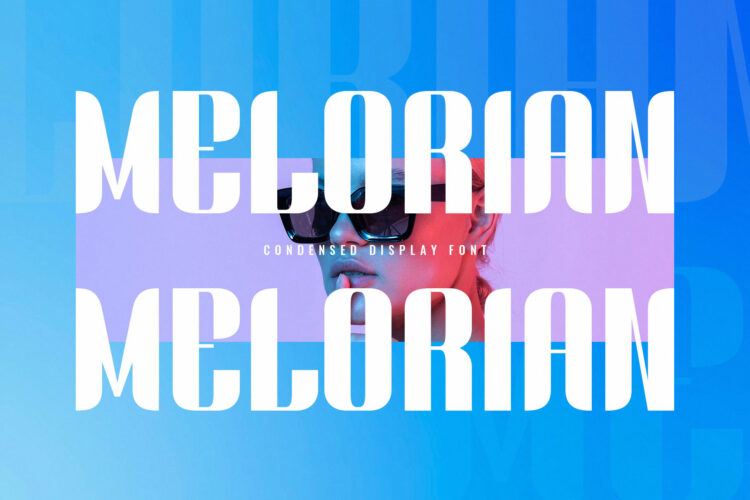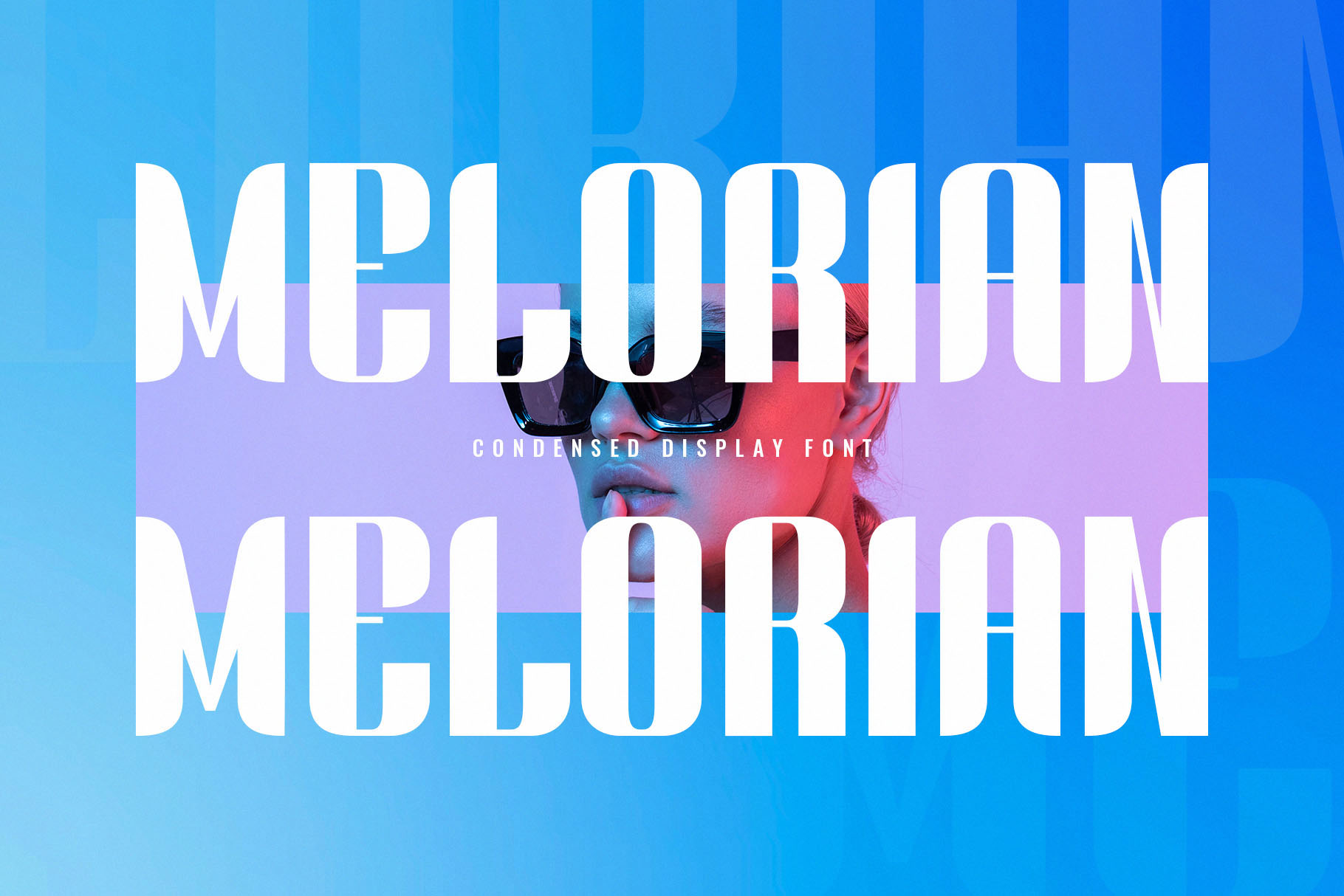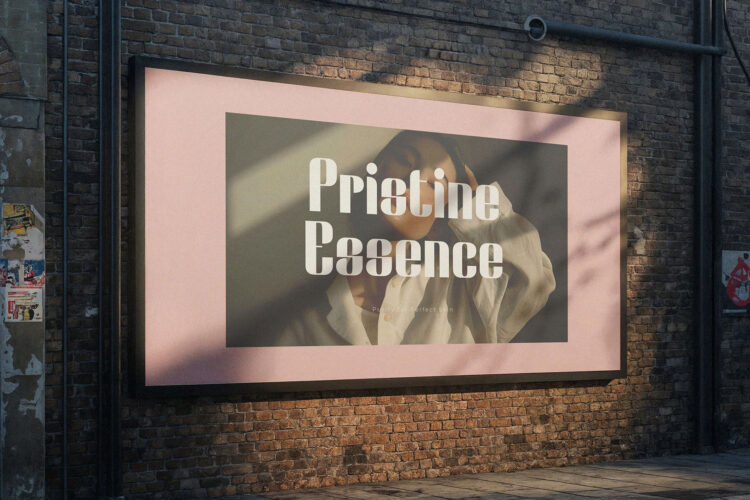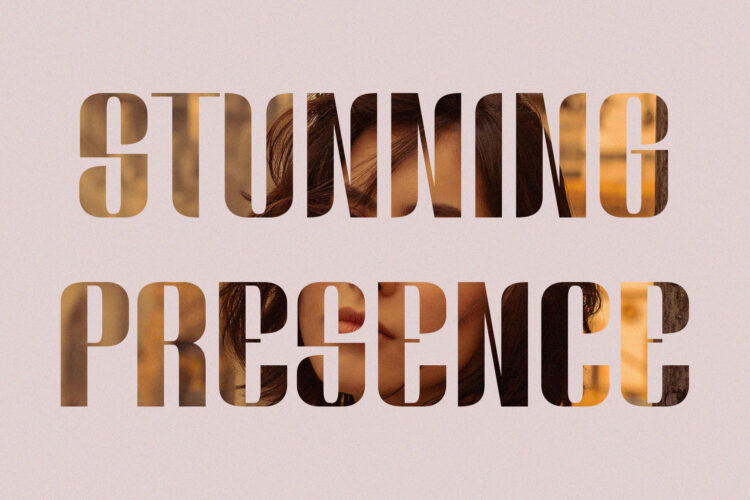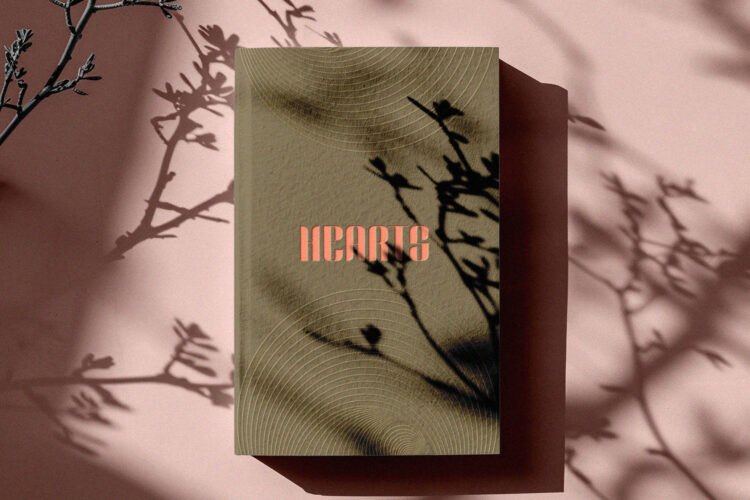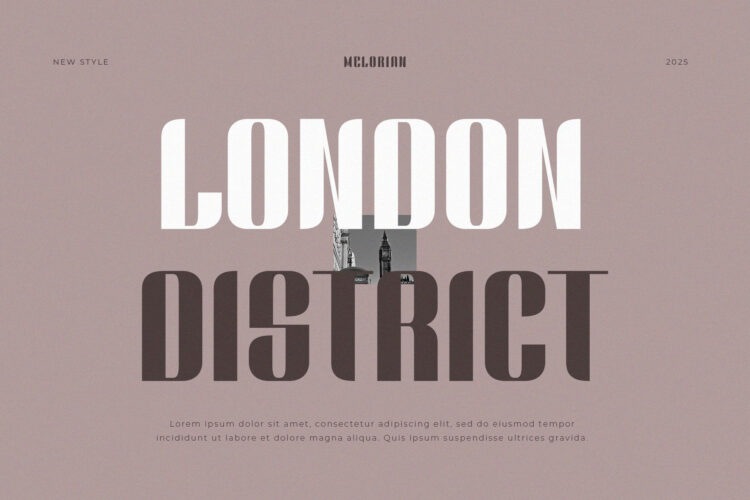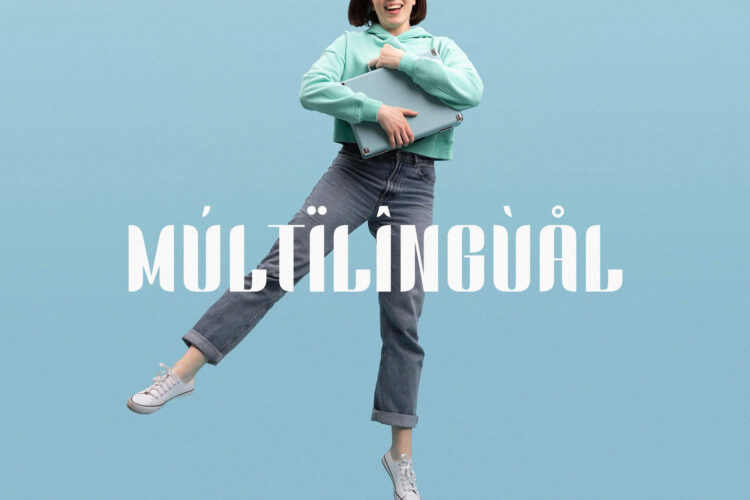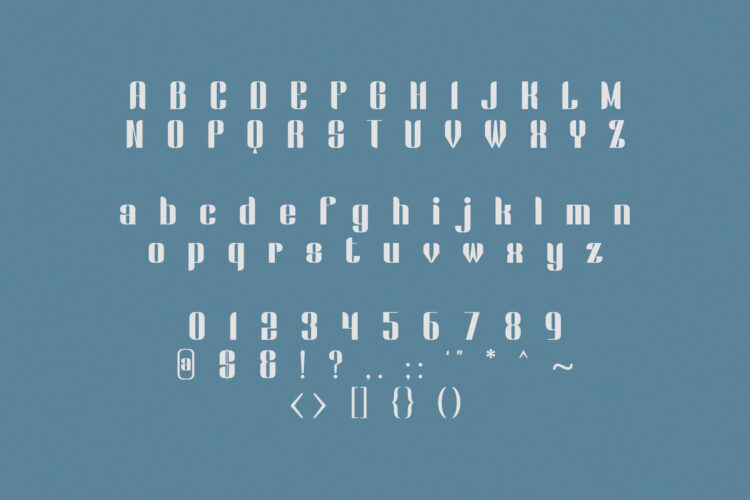
Melorian – Bold Condensed Sans Serif Display Font for Futuristic Branding & Posters
Melorian is a modern condensed sans serif display font with bold curves, sharp edges, and a high-impact presence. Designed to grab attention instantly, Melorian is perfect for futuristic branding, music or fashion posters, magazine headlines, sports graphics, tech logos, and urban-themed projects.
This typeface offers a unique combination of strength and style, blending geometric form with expressive character. Whether you’re working on bold advertisements or sleek editorial layouts, Melorian will elevate your design with a powerful modern vibe.
Font Features:
– Uppercase & lowercase
– Condensed width with high contrast
– Perfect for branding, titles, and bold statements
– Ideal for posters, covers, music art, and digital media
– Includes multilingual support
Give your work a striking and stylish edge with Melorian, a font built for visual dominance and creative impact.